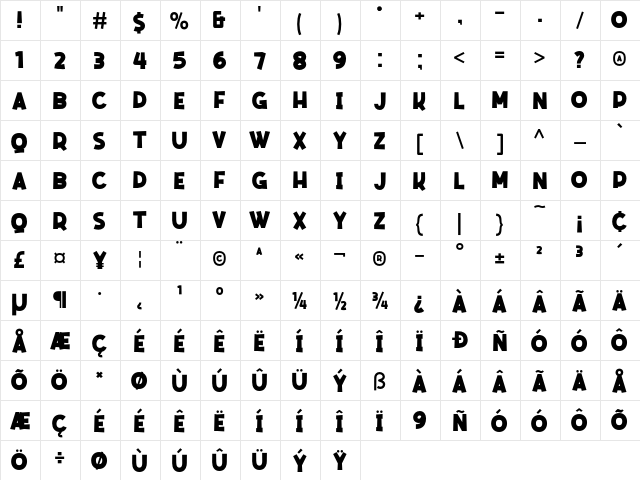
Mencran Regular
Design Context for Mencran Typeface
Mencran takes a measured approach to typography — its balanced proportions and neutral character make it a reliable workhorse for both digital and print work.
Pro Tip: Use Mencran in both headline and body roles to test its range before committing to a single application.